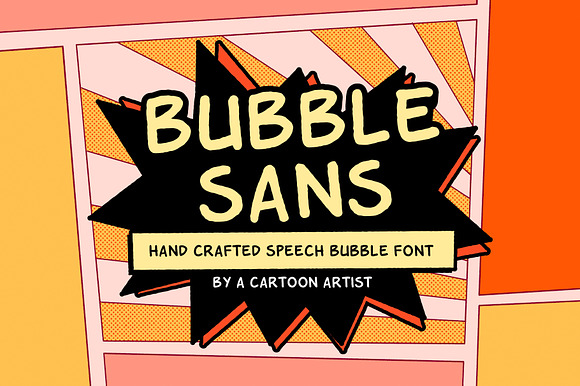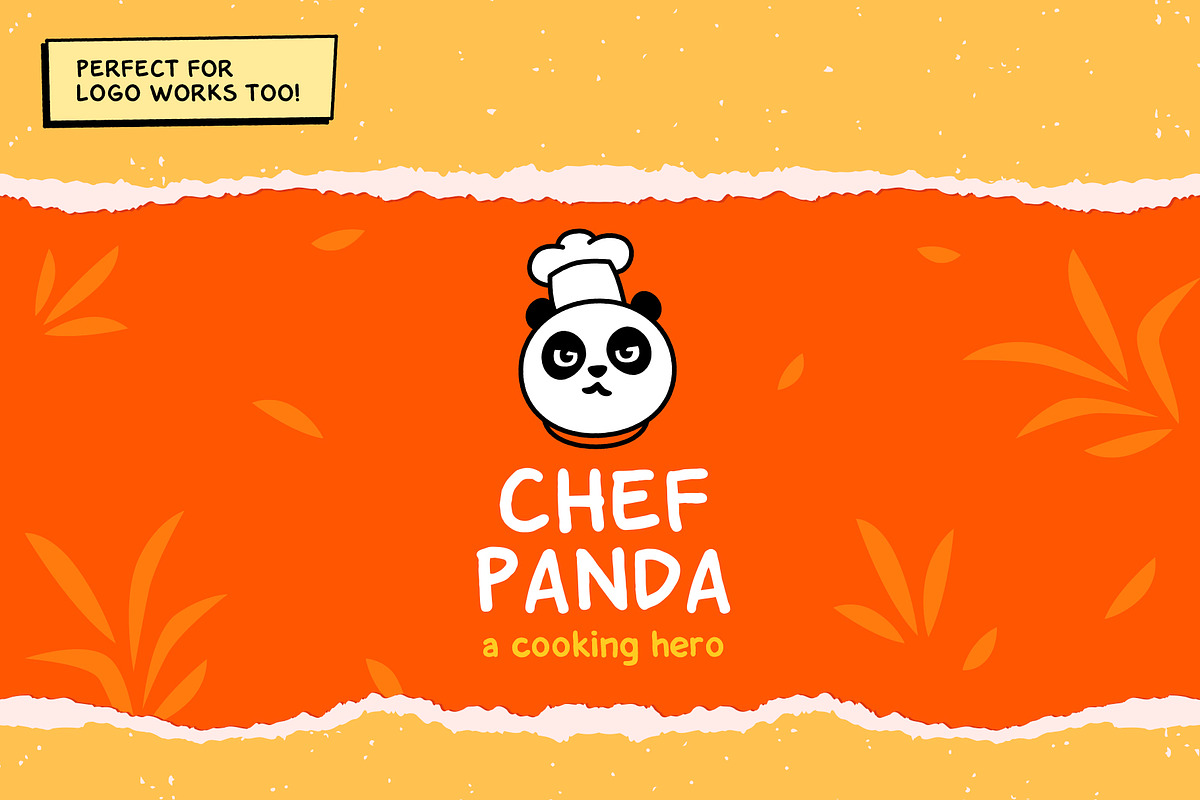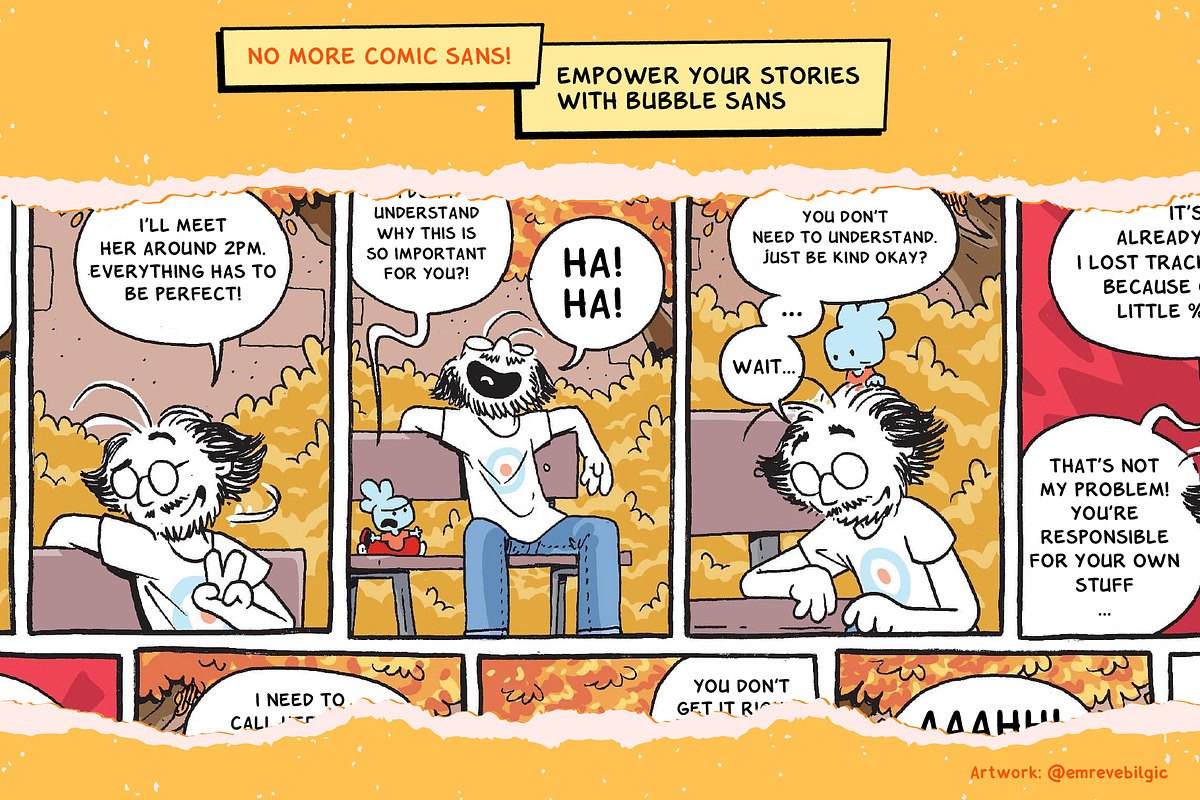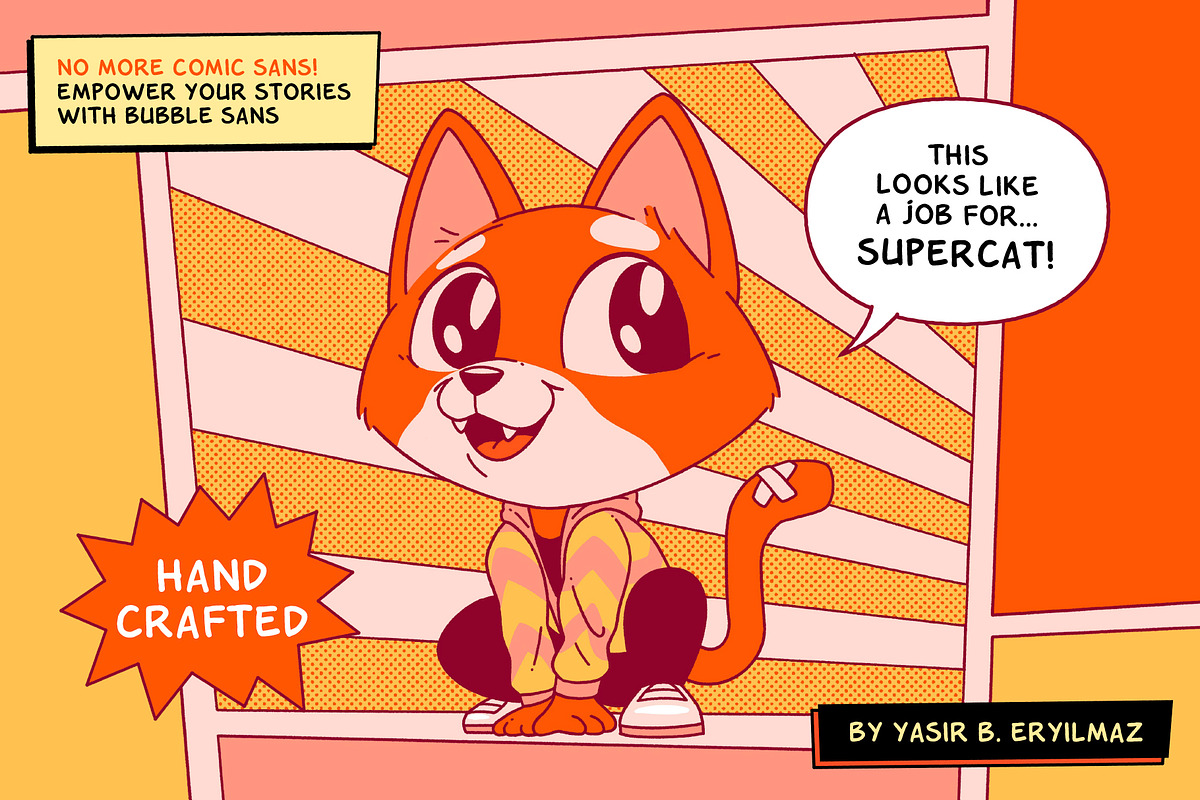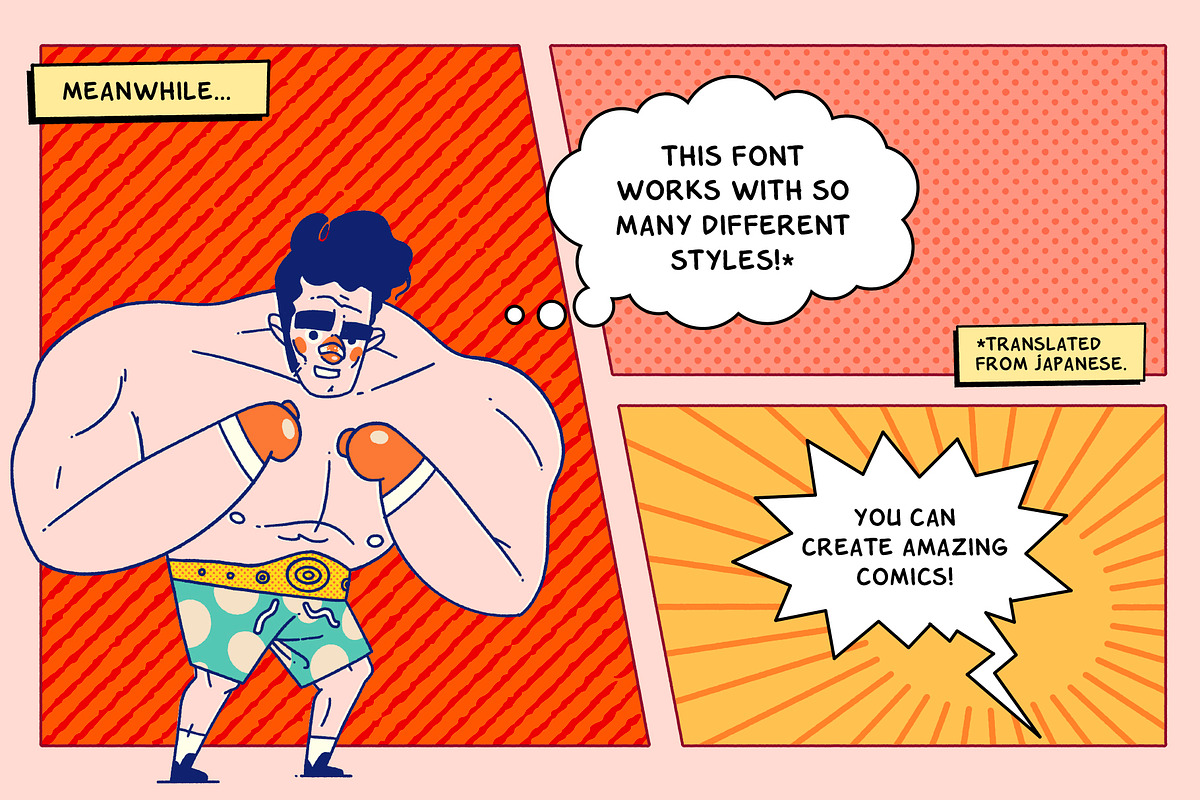
Bubble Sans - Comic Book Font
Introducing...Bubble Sans!
Carefully designed natural looking comic book speech bubble font.
Great for comics, children illustrations books, packaging, invitations, T-shirts, and more.